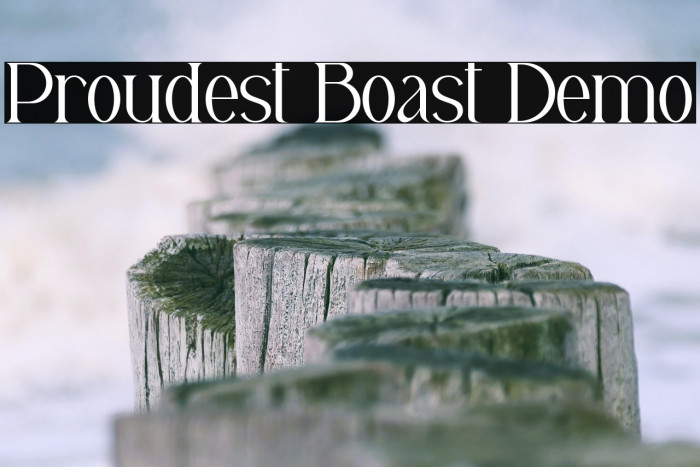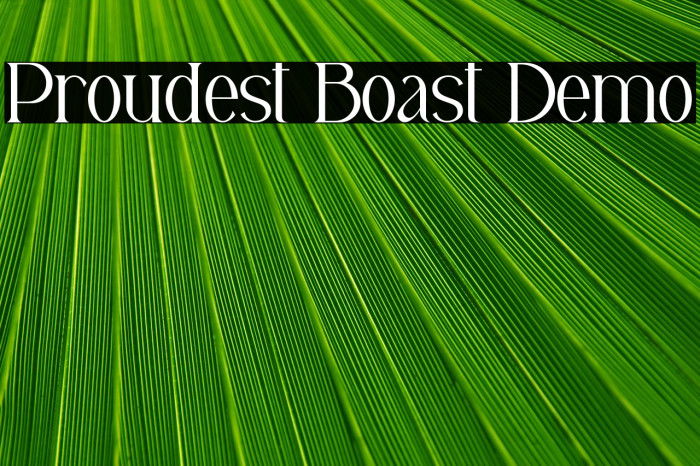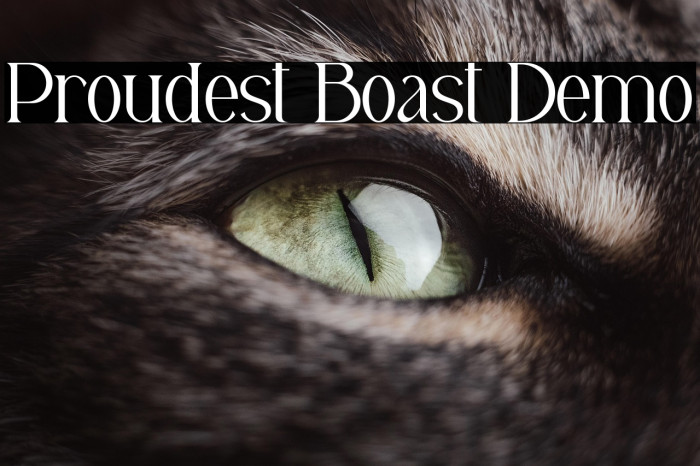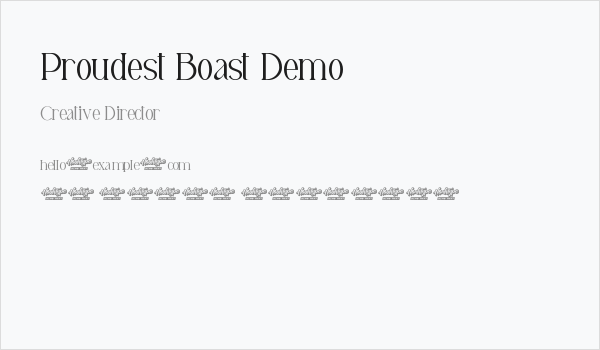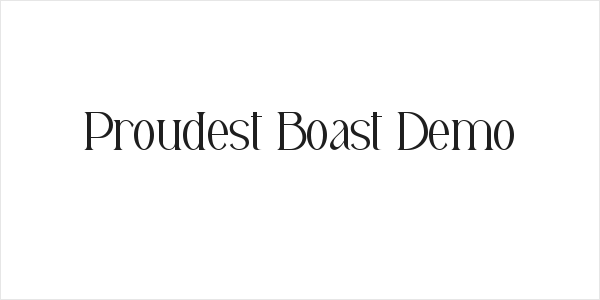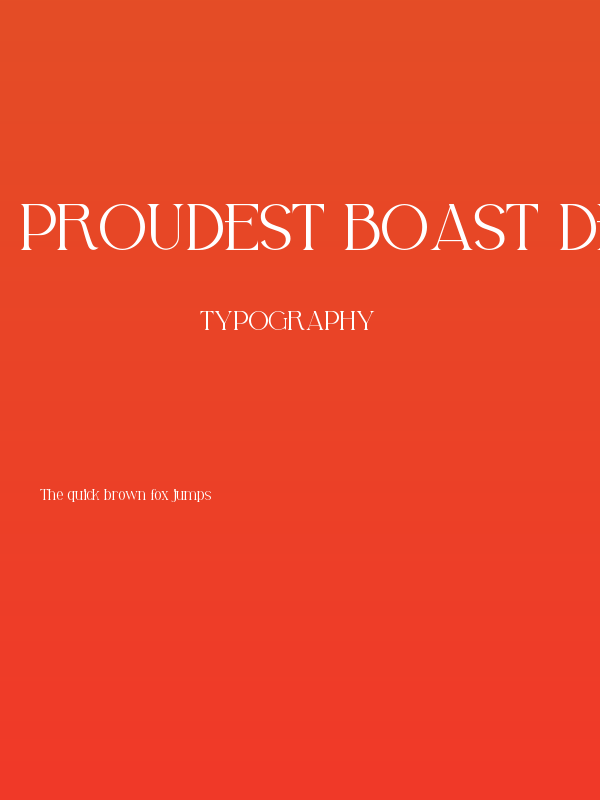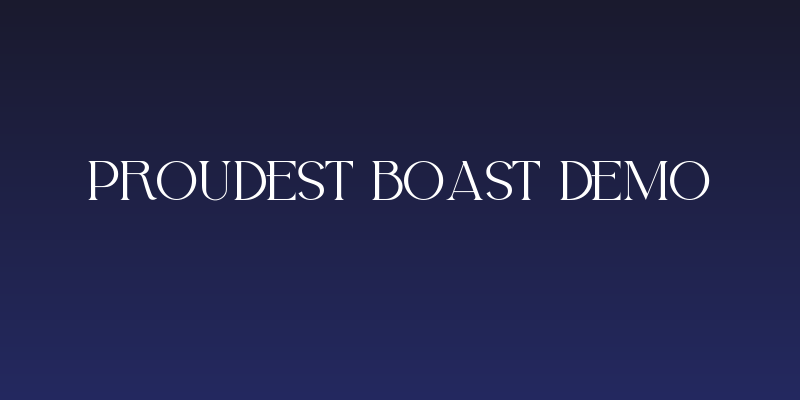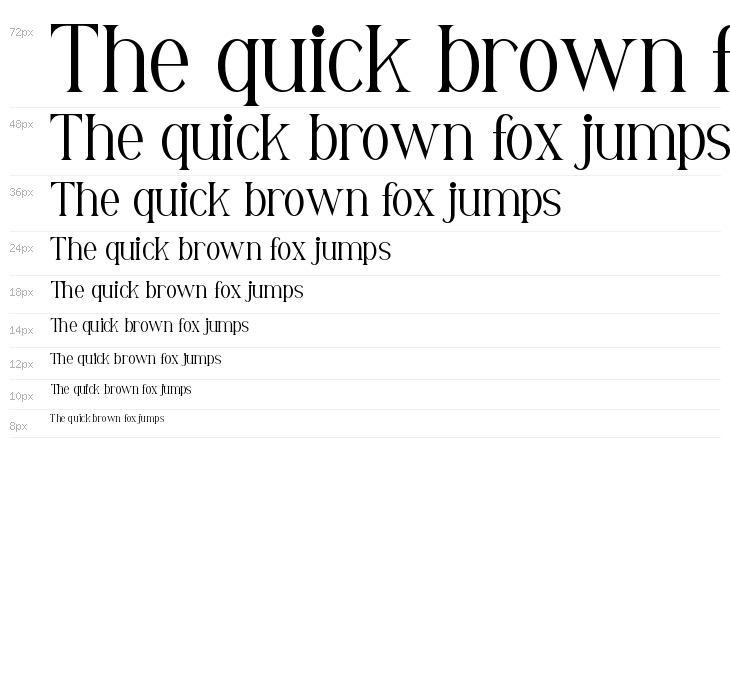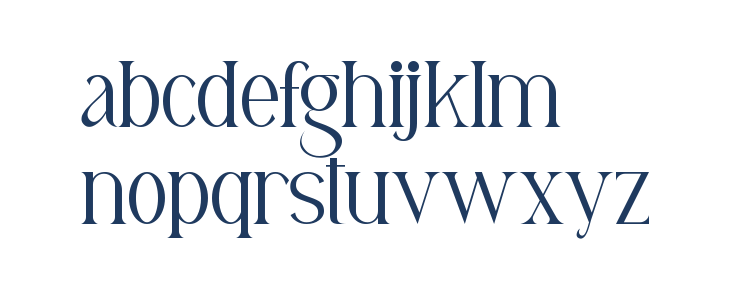
Proudest Boast Demo Font
Proudest Boast Demo Description
This font features a sophisticated and elegant serif style with high contrast between thick and thin strokes, giving it a refined and classic appearance. The uppercase letters are tall and slender, while the lowercase letters have a graceful flow with distinctive curves, particularly noticeable in characters like 'g' and 'y'. The overall design is clean and sharp, making it suitable for formal and high-end applications. The spacing between characters is balanced, ensuring readability while maintaining a stylish look.
| Proposed Projects | Ideal for luxury branding, editorial design, wedding invitations, and high-end product packaging. |